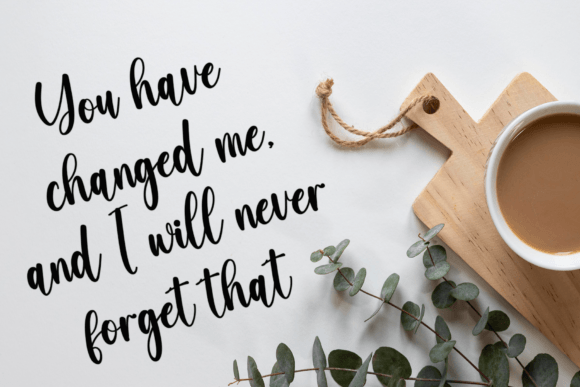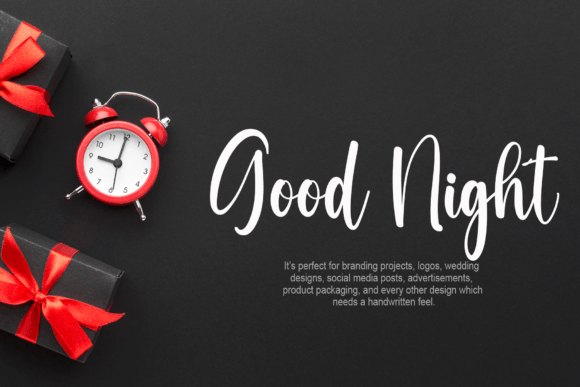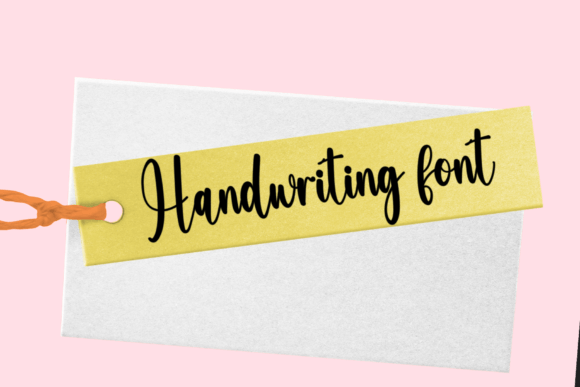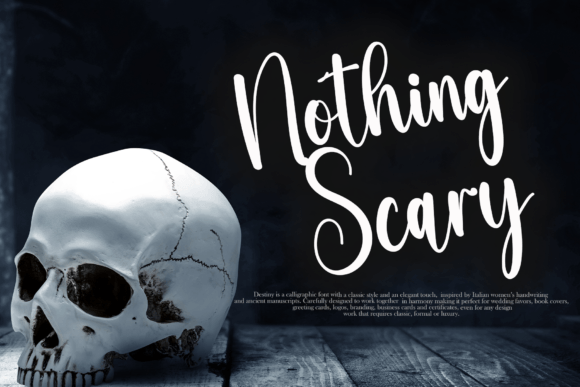
Discover the Charm of Destiny Font: Elevate Your Creative Projects
Are you on the hunt for a font that exudes warmth, friendliness, and a touch of playfulness? Look no further than Destiny Font, a delightful handwritten script that is sure to capture the hearts of designers, crafters, and DIY enthusiasts alike. With its incredibly friendly feel, Destiny Font is the perfect choice for adding a personal touch to your creative projects, whether you’re designing for Instagram, crafting calligraphy scripts, or working on DIY endeavors.
The Characteristics of Destiny Font
Destiny Font boasts a cute and casual aesthetic that is both visually appealing and highly versatile. Its handwritten nature gives it a unique, organic feel that is reminiscent of traditional calligraphy. The font’s friendly demeanor makes it an excellent choice for a wide range of applications, from social media graphics and invitations to craft projects and art pieces.
Perfect for Instagram and Social Media
In the world of social media, standing out from the crowd is crucial. With Destiny Font, you can add a touch of personality to your Instagram posts, stories, and bio. Its playful, approachable vibe makes it perfect for engaging with your audience and showcasing your brand’s unique voice. Whether you’re a blogger, influencer, or small business owner, Destiny Font can help you elevate your social media presence and make a lasting impression.
Unlocking Creative Possibilities with Calligraphy Scripts
For crafters and DIY enthusiasts, Destiny Font offers a world of creative possibilities. Use it to create beautiful calligraphy scripts for:
- Handmade cards and invitations
- DIY home decor projects, such as signs and wall art
- Customized gifts, like mugs and tote bags
- Personalized journals and planners
With Destiny Font, you can add a touch of elegance and whimsy to your handmade creations, making them truly one-of-a-kind.
Why Choose Destiny Font?
So, what sets Destiny Font apart from other fonts? Here are just a few reasons why designers and crafters love working with this delightful script:
- Friendliness: Destiny Font has an incredibly warm and inviting feel, making it perfect for building connections with your audience.
- Versatility: This font can be used for a wide range of creative projects, from social media graphics to handmade crafts.
- Ease of use: Destiny Font is easy to read and works well in both digital and print formats.
- Customization: With its unique character set and ligatures, you can experiment with different styles and effects to make your projects truly unique.
Tips for Using Destiny Font
To get the most out of Destiny Font, here are a few tips to keep in mind:
- Experiment with colors: Destiny Font looks great in a variety of colors, so don’t be afraid to get creative with your palette.
- Mix and match: Combine Destiny Font with other fonts or graphics to create visually interesting and dynamic designs.
- Pay attention to spacing: Make sure to adjust the spacing between letters and words to create a clean and balanced look.
Destiny Font is a charming and versatile script that is sure to delight designers, crafters, and DIY enthusiasts alike. With its friendly feel, cute aesthetic, and wide range of applications, this font is the perfect choice for adding a personal touch to your creative projects. Whether you’re designing for Instagram, crafting calligraphy scripts, or working on DIY endeavors, Destiny Font is sure to help you turn your ideas into true pieces of art.